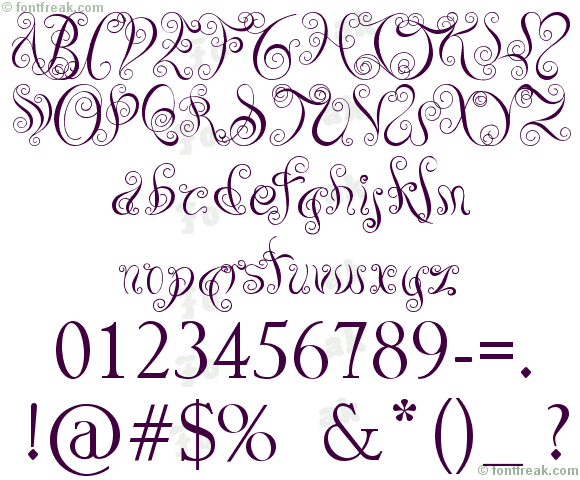
You Are Precious
About You Are Precious
The "You Are Precious" font by Jonathan S. Harris is a captivating handwritten script that exudes charm and elegance. With its flowing curves and whimsical flourishes, this font embodies a decorative style that is both inviting and expressive. The stroke weight varies, creating a delightful contrast that enhances the overall visual appeal, while the generous spacing between letters adds to its legibility and aesthetic harmony. The intricate decorative elements, such as spirals and loops, make this typeface particularly unique, setting it apart from more traditional fonts.
This font is ideally suited for a variety of creative projects. It shines in wedding invitations, where its romantic and personal touch can convey heartfelt sentiments. Additionally, it works wonderfully for greeting cards, allowing designers to craft messages that feel intimate and special. Restaurant menus can also benefit from the "You Are Precious" font, adding a touch of sophistication and warmth that invites patrons to explore the culinary offerings. Furthermore, its playful nature makes it an excellent choice for children's book covers, capturing the imagination of young readers.
What makes the "You Are Precious" font truly stand out is its ability to evoke emotion through its unique stylistic choices. It is not just a font; it is a versatile tool for storytelling, allowing users to convey feelings of love, joy, and celebration in their projects.